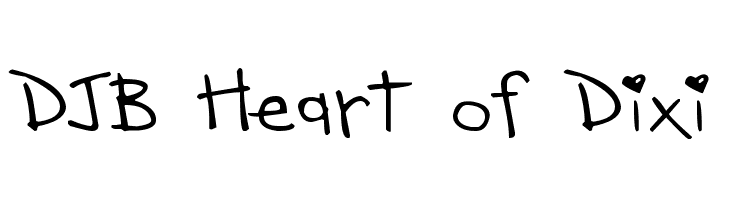
A playful, handwritten font with a casual and lively style.
A playful, handwritten font with quirky, irregular strokes.
( Fonts by Syed Hakim Omar )
A bold, energetic handwritten font with playful, irregular strokes.
A dynamic handwritten font with fluid, irregular strokes and a playful aesthetic.